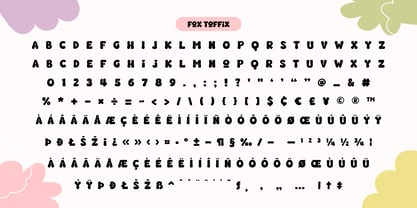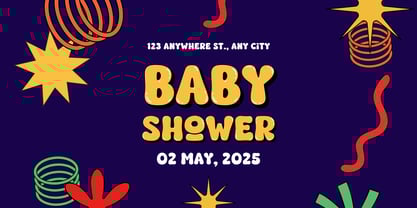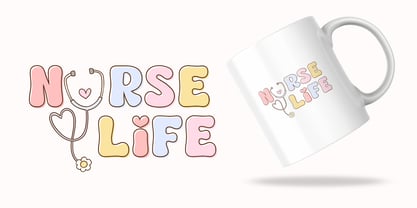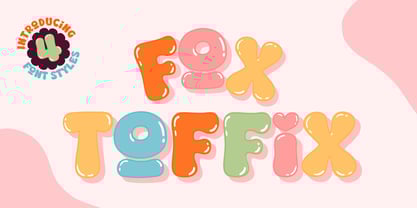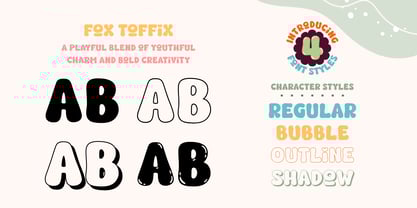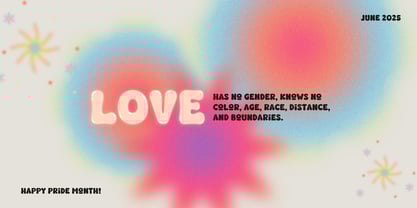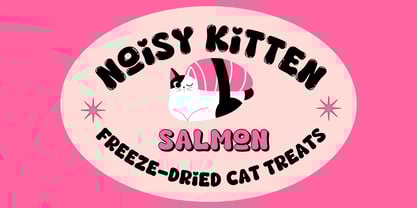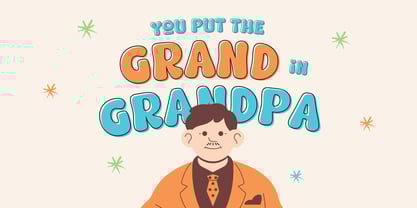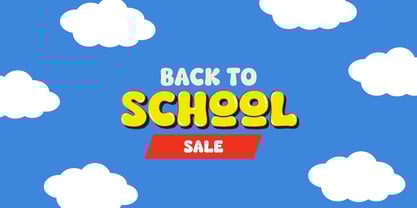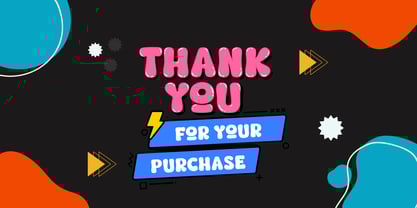
Fox Toffix
by Fox7
The Fox Toffix Font Family was designed by Rattana Rattanawan and published by Fox7. Fox Toffix contains 4 styles and family package options. More about this family
Fox Toffix – A Playful Bubble Font Family (4 Styles)
Say hello to Fox Toffix, a fun and bouncy font family that blends youthful charm with bold creativity! This bubble-inspired display font is perfect for designers who want to add a burst of playfulness to their projects. Whether you're designing for kids, party invites, social media, packaging, or merchandise — Fox Toffix brings a fresh and friendly personality to the table.
🌼 Fox Toffix Regular – The solid base style with soft, rounded edges.
🌼 Fox Toffix Bubble – A juicy, filled version with a glossy candy-like appearance.
🌼 Fox Toffix Outline – A light and airy outlined version with cartoonish flair.
🌼 Fox Toffix Shadow – A bold 3D-style shadow that adds depth and fun.
Add a splash of happiness to your creative work with Fox Toffix – your new favorite bubble font family!